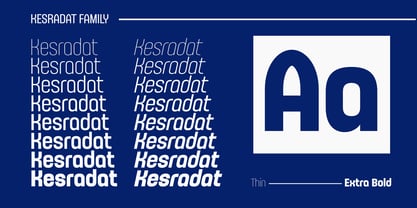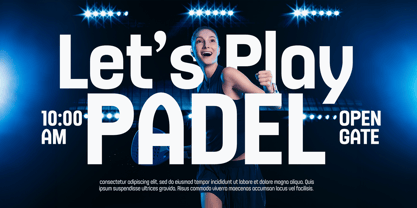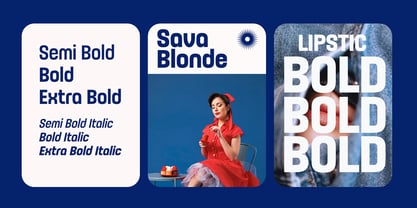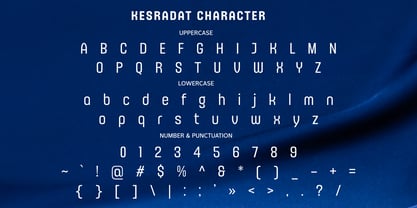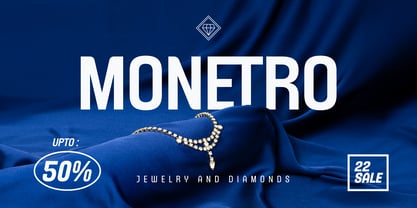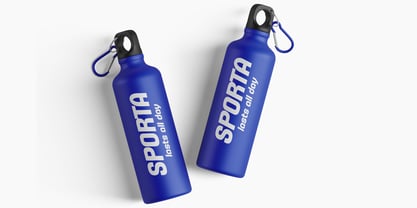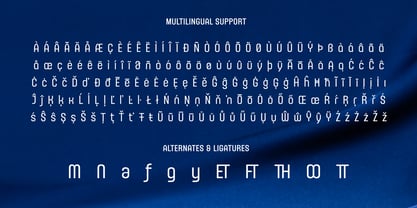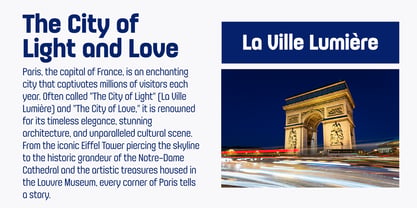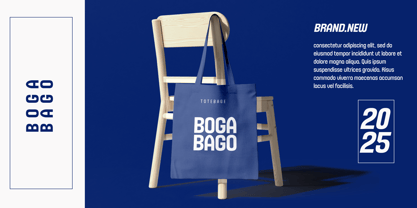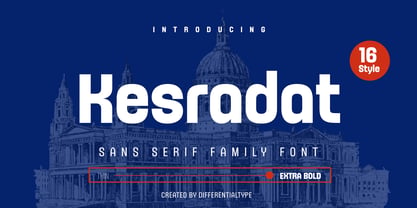
Kesradat
by Differentialtype
The Kesradat Font Family was designed by Sidik Sidik and published by Differentialtype. Kesradat contains 16 styles and family package options. More about this family
Introducing Kesradat, a versatile and elegant sans-serif font designed to meet your every design need. With 16 comprehensive styles, ranging from the light and modern Thin to the strong and daring Extra Bold, Kesradat offers limitless flexibility. Of course, each style comes with an italic version for a dynamic touch. This font ensures optimal readability at any size, making it a perfect choice for long-form document text, eye-catching headlines, and clean, efficient user interface designs.
Kesradat is more than just a font—it's a complete branding solution. With its neutral yet characterful presence, this font can adapt to various brand personas, from professional and serious to creative and cheerful. Use Kesradat to craft a timeless logo, create captivating product packaging, or design consistent marketing materials. Kesradat’s presence will elevate any project, providing a professional and attractive touch that will make your work stand out from the rest.